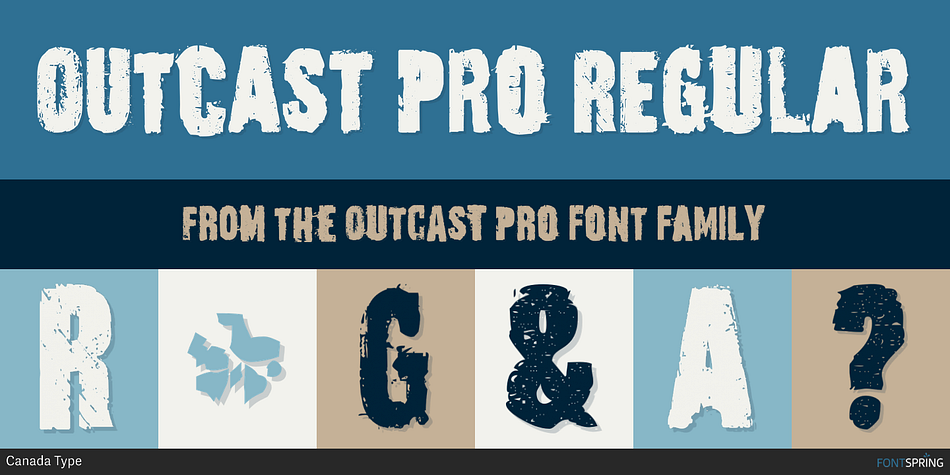
Outcast Pro is a grunge font published by Canada Type.
Outcast puts the whole grunge font problem to rest by eliminating repetition. Here we have eight variations on each character (4 all cap fonts), so there is no more need to use the same character twice in any display setting. You have the main interchangeable fonts, then you have Outcast Pro